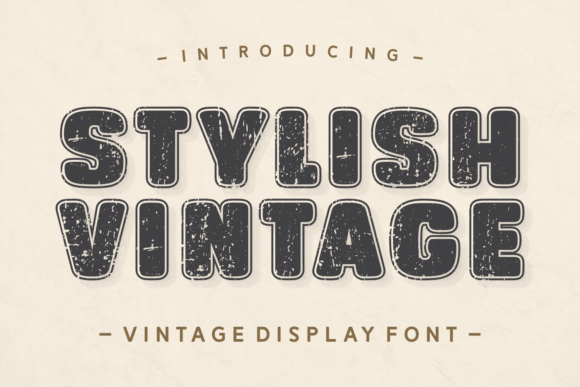
Journey back in time and let your designs bask in the allure of Stylish Vintage Font. This captivating display font will transport you to an era of retro charm, evoking nostalgic vibes with its grunge effect. Crafted by the talented Refy (7NTypes), Stylish Vintage is a typographic treasure that will make your creative endeavors shine.
Visualize your designs adorned with this chunky lettered font. Its bold strokes and striking curves will command attention, adding an instant touch of character to logos, posters, branding, and more. Unleash your imagination and explore endless possibilities with Stylish Vintage.
Unlike ordinary fonts, Stylish Vintage possesses a remarkable ability to transform your designs into works of art. It's more than just a font; it's a gateway to a world of vintage aesthetics and timeless appeal. Immerse yourself in a creative odyssey with Stylish Vintage as your trusted companion, pushing the boundaries of design and leaving a lasting impression on your audience.
Step into the realm of exceptional design with Stylish Vintage Font. Its unique charm is perfect for creating eye-catching sticker labels that evoke a sense of nostalgia and individuality. Let your products stand out, captivating customers with their distinctive vintage charm.
Don't settle for mundane fonts. Embrace the power of Stylish Vintage and elevate your designs to new heights. This font is not just a collection of letters; it's a vessel for creativity, a catalyst for inspiration. Let your designs speak volumes with the timeless elegance of Stylish Vintage.
Welcome Stylish Vintage Font into your design toolbox and unveil a world of endless creative possibilities. Experience the magic of typography and make your designs truly unforgettable.